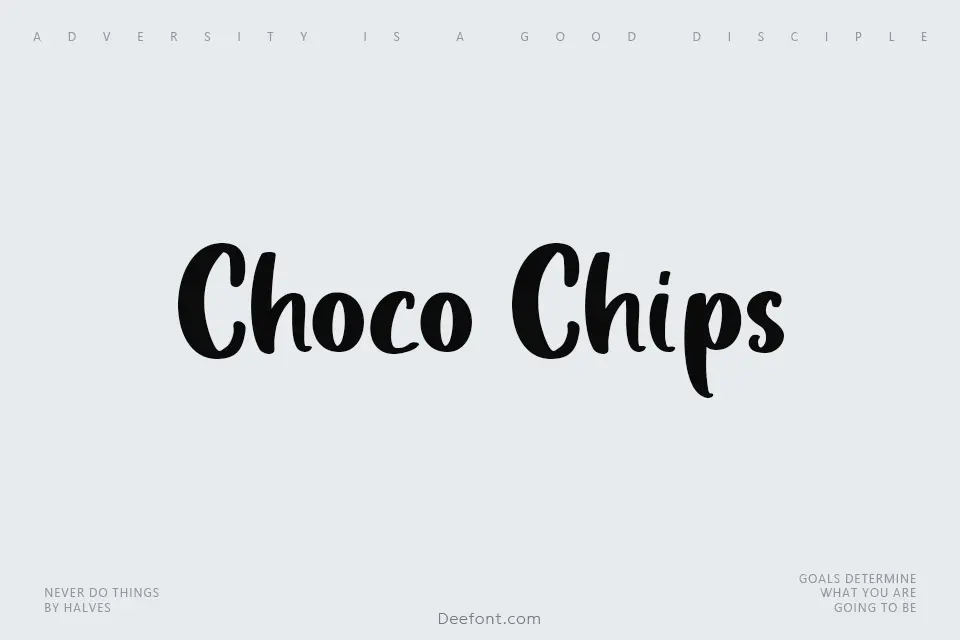
Choco Chips Font
Choco Chips Font is a new stylish display font. Its perfect for logo,branding, tittle, social media posts, advertisements, product packaging, product designs, label, photography, watermark, special event,magazine,web design,etc.